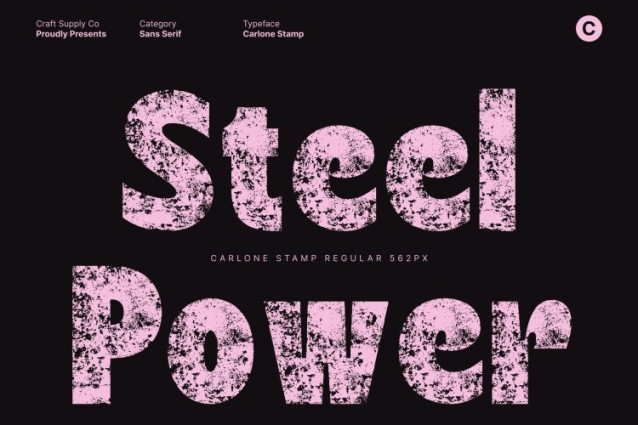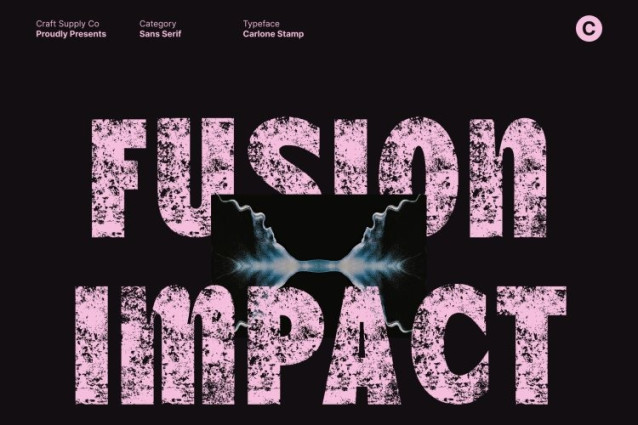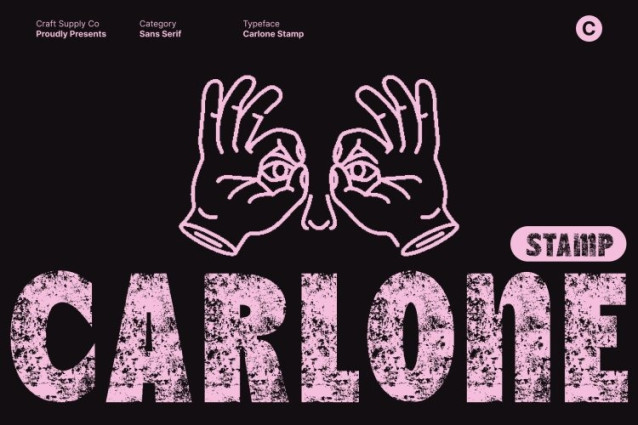
Carlone Stamp Font
Carlone Stamp Font This is a bold sans serif display font created to deliver instant presence. Its strong, clean shapes form a solid and commanding structure, giving every letter clarity and power. The design embraces confident proportions that make headlines, posters, and branding materials stand out effortlessly.
Stamp Texture for Artistic Expression
What sets this font apart is its expressive stamp texture. This handcrafted, imperfect detailing adds depth, tactility, and a layer of visual interest that transforms the otherwise clean geometry into something more human and artistic. The textured effect introduces an organic charm, making the font feel lively, authentic, and creatively bold—perfect for projects that aim to feel raw, dynamic, and full of personality.
Ideal for Headlines, Posters, and Bold Branding
From large-format posters to impactful logos and promotional materials, this font shines in any display environment. Its bold shapes ensure immediate readability, while the textured finish enhances the design with a uniquely rugged flair.
A Lively, Unconventional Display Font
This font combines modern strength with a handcrafted edge, resulting in a display font that feels unconventional yet highly usable. It offers a perfect balance between structure and spontaneity, making it an excellent tool for designers who want to push boundaries and create visuals that feel fresh, engaging, and artistically distinctive.